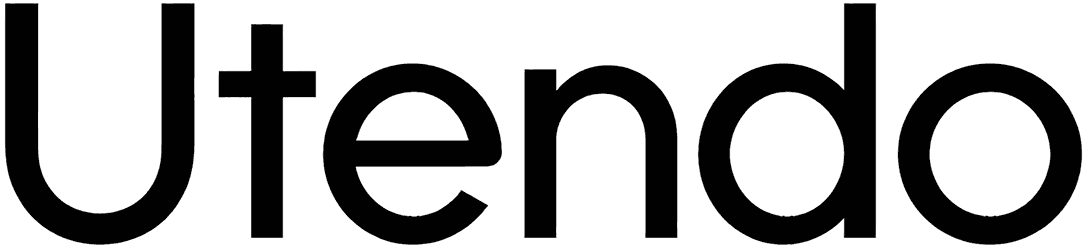
Utendo Font
We get this. It’s cool to start from almost the verge of invisibility and slowly thicken until the tone can’t get any stronger. But is Utendo’s first version even readable? We mean half the letters are wiped out! Of course, we’re sure you’re gonna find somewhere to use that too.
Even if that’s not totally to your taste, you still have a dozen other versions of Utendo to try in your modern business cards for gyms, electronic stores, and similar projects.
Based on a series of logotypes from a series of Wii U products.
Cyrillics included. 7 weights were removed as Regular and Bold are the only definitive weights. Regular, particularly, is based on the “NINTENDO” part of the Nintendo Network logo. Bold is based on the rest.10/4/2025